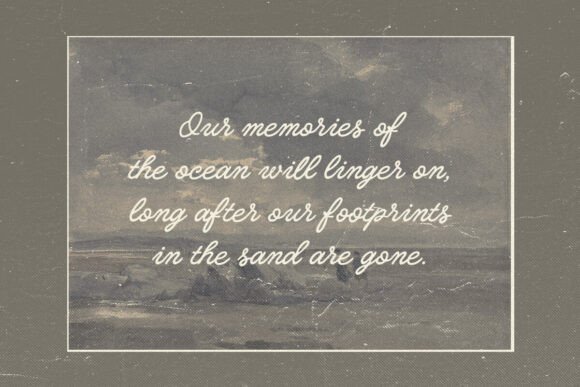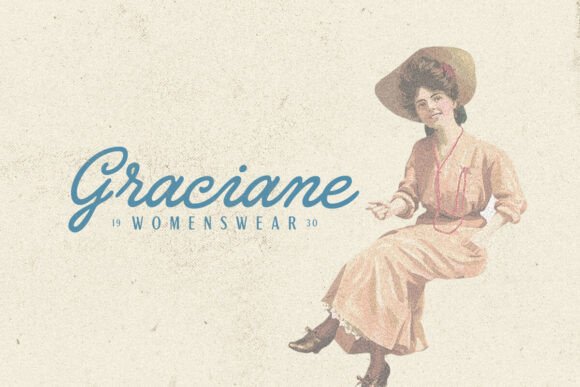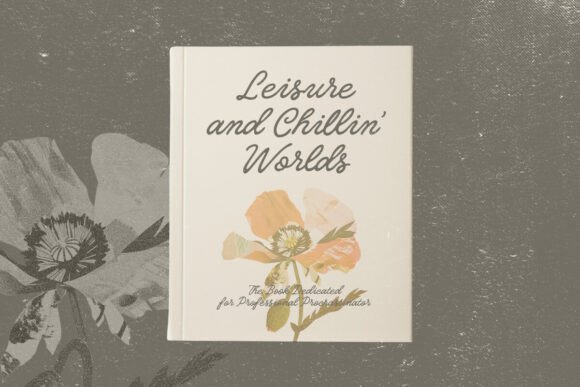
Introduction to Lodiane Script Font
Lodiane Script is a vintage-inspired script font with elegant, flowing curves and a handcrafted feel.
Its retro aesthetic, subtle shadowing, and smooth strokes make it perfect for branding, logos, packaging, invitations, and editorial design With a nostalgic yet versatile charm, it’s ideal for projects that blend classic sophistication with a touch of rustic warmth.
Key Features of Lodiane Script Font
Why Choose Lodiane Script Font?
Lodiane Script Font offers exceptional quality and versatility, making it a valuable addition to your design toolkit. Whether you’re creating for personal projects or commercial use, Lodiane Script Font delivers professional results.